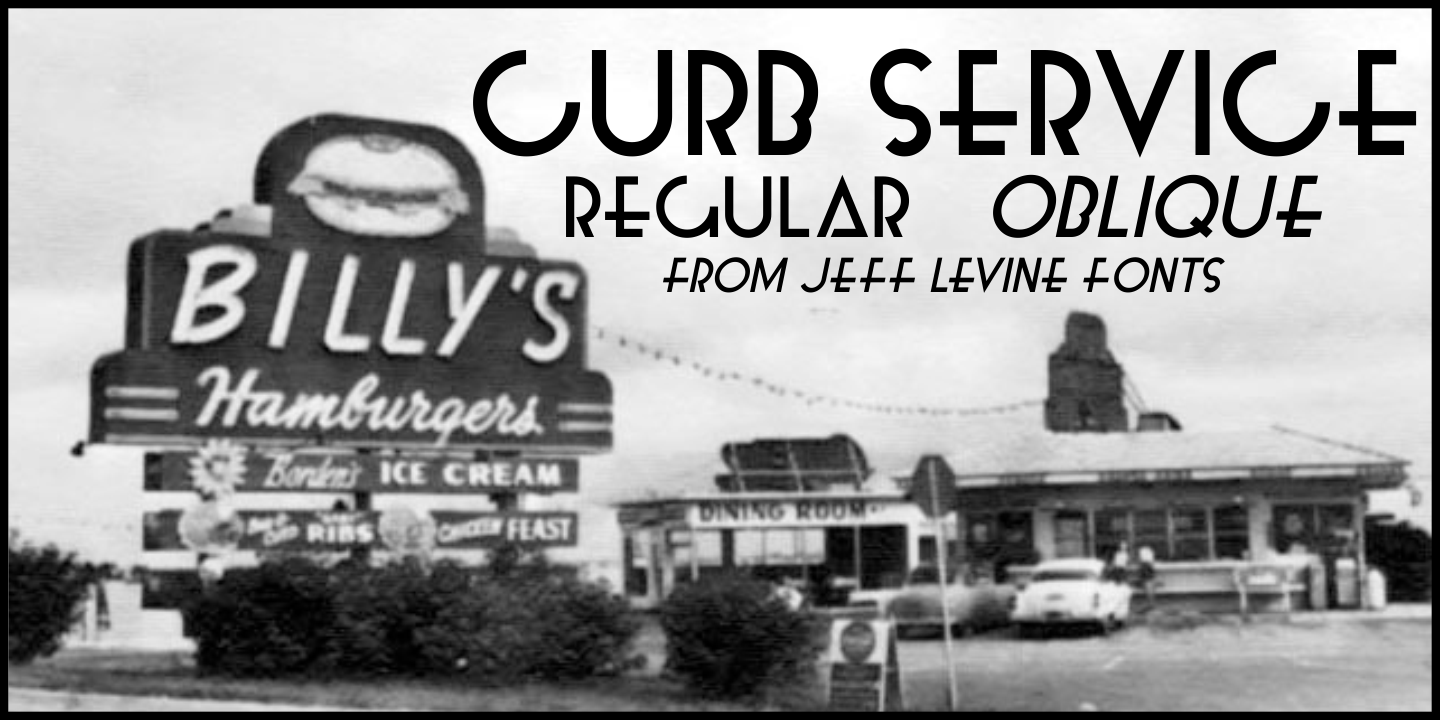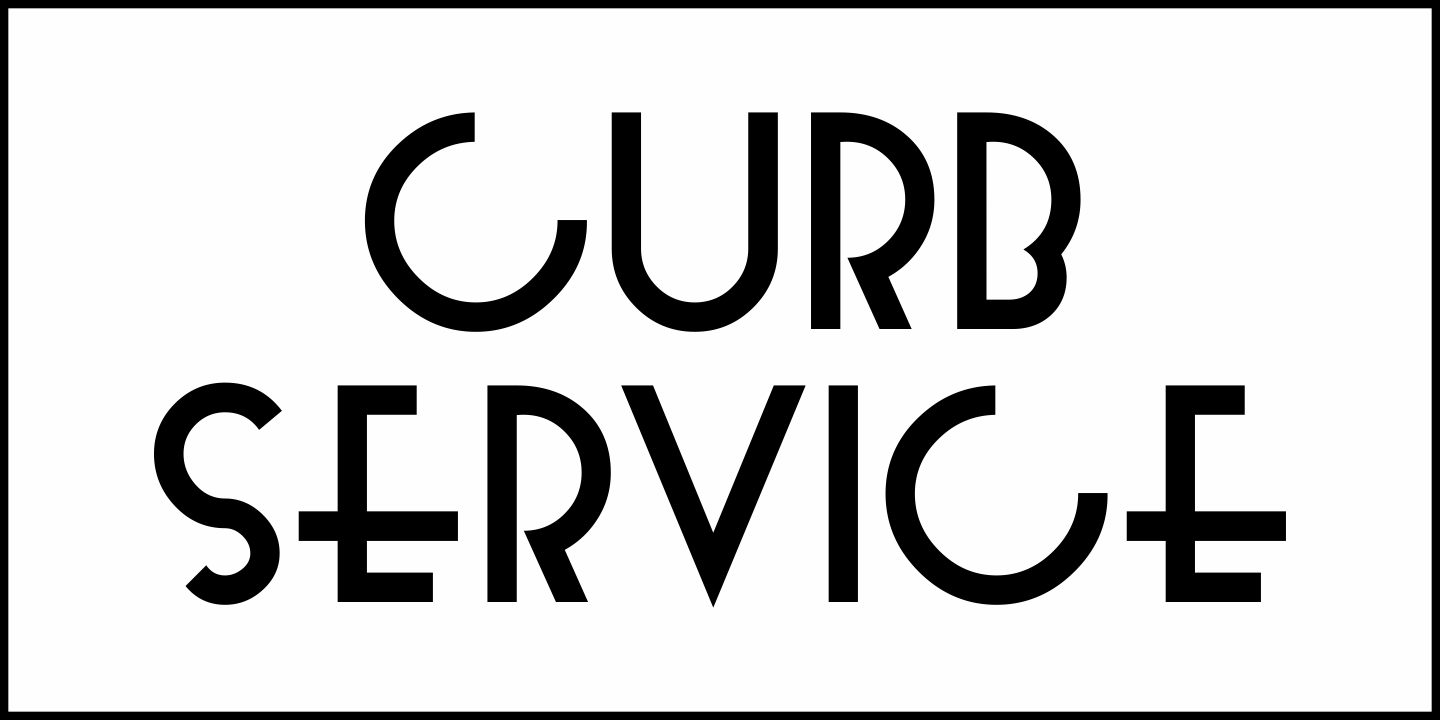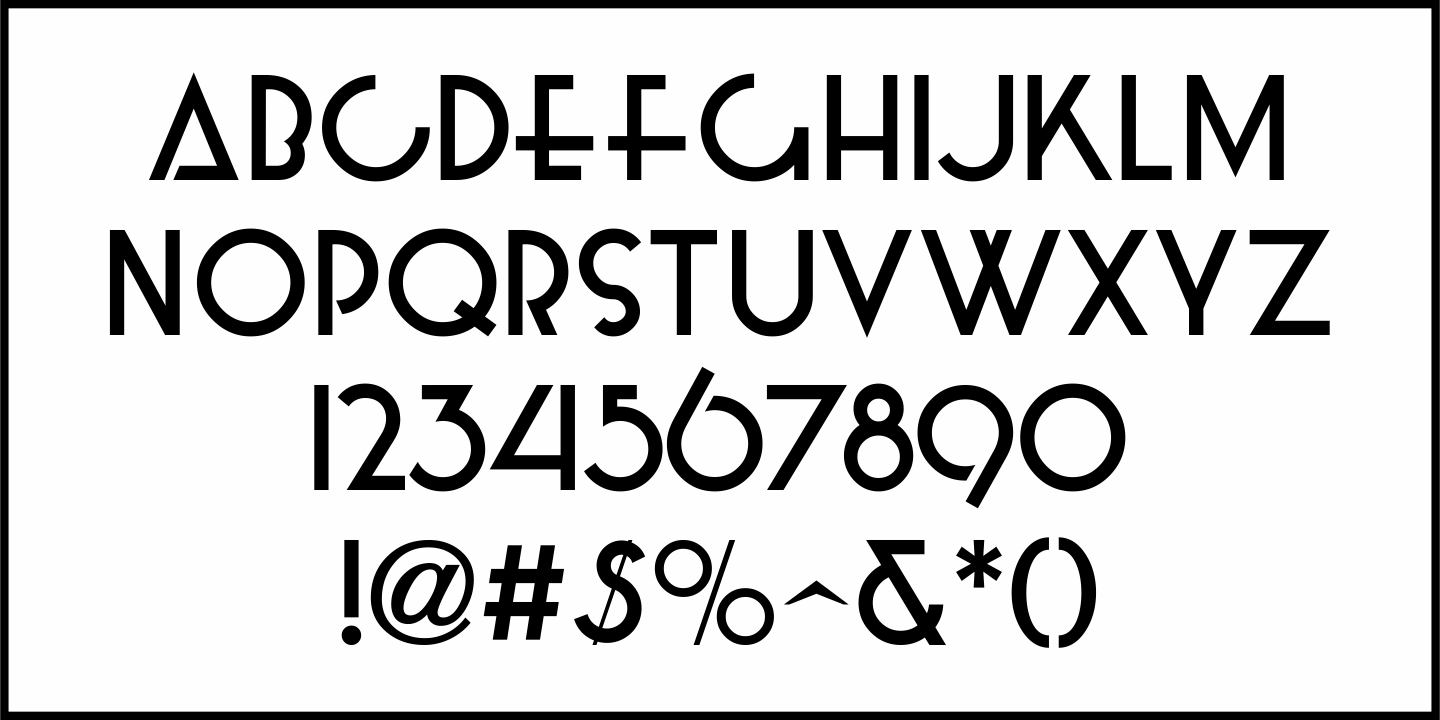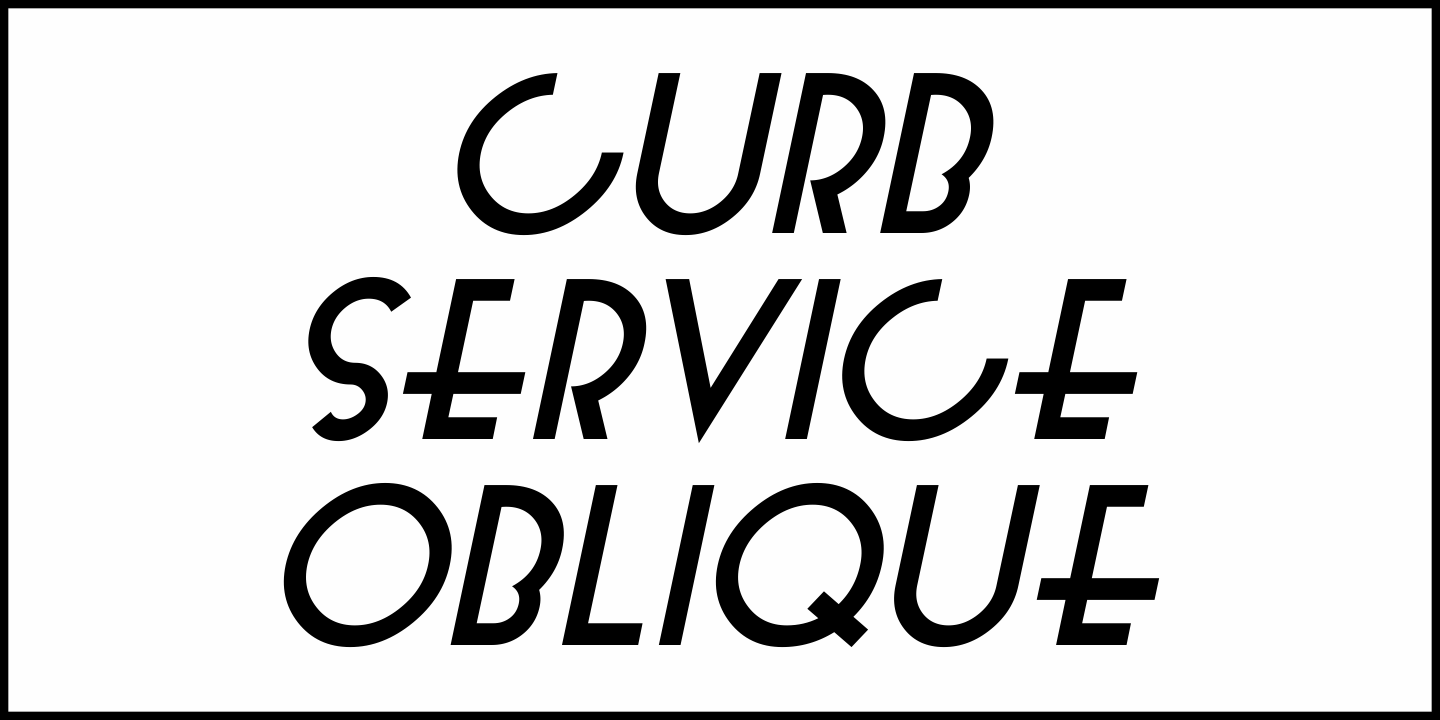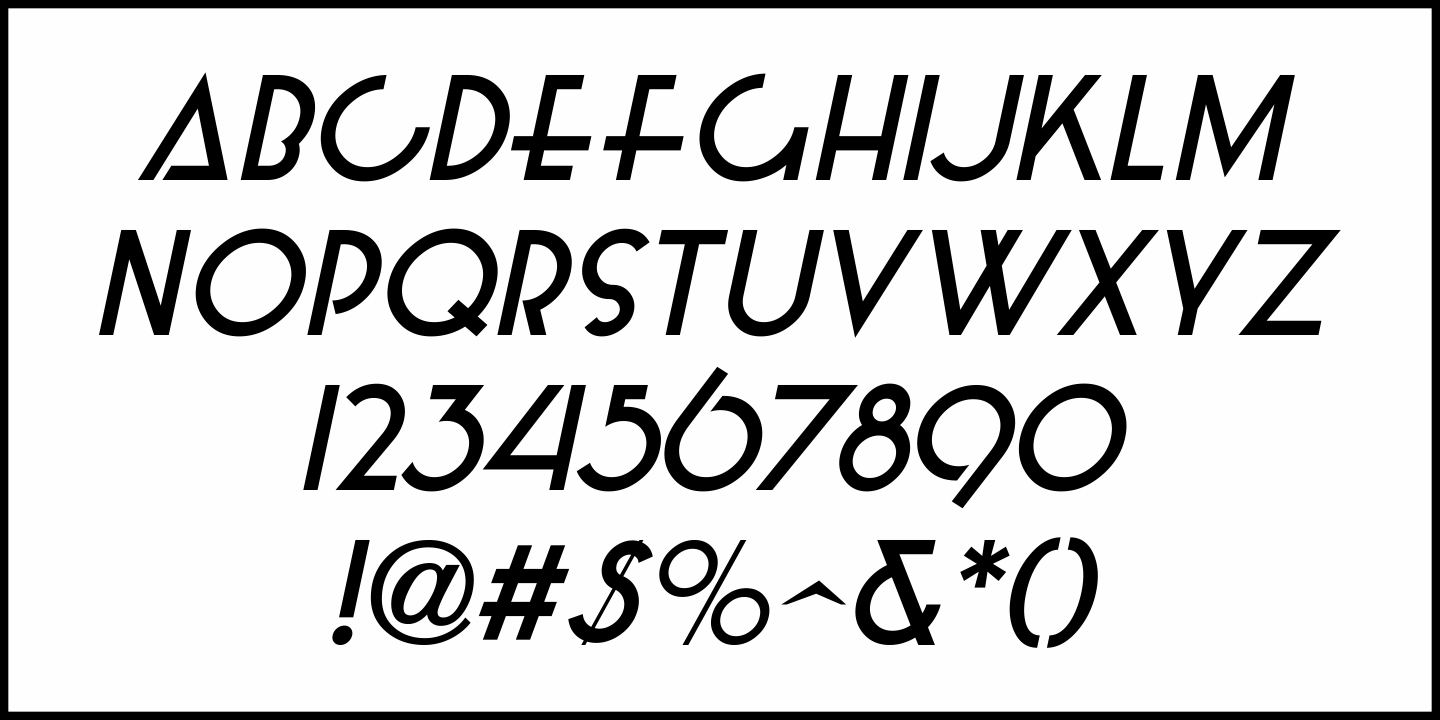
Curb Service
A classified ad in the January, 1944 edition The Record Changer for a Duke Ellington records want list was hand lettered in a unique Art Deco sans serif type design.
This served as the model for Curb Service JNL. which is available in both regular and oblique version.